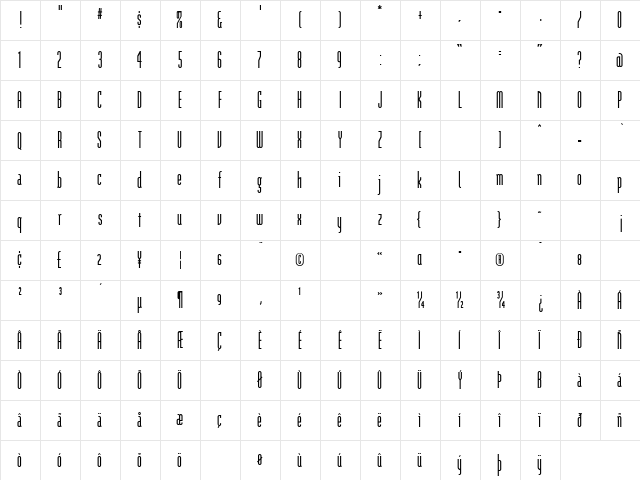
ModulaTall Regular Font Preview
ModulaTall Regular
Design Context for ModulaTall Typeface
ModulaTall offers clean, dependable letterforms without strong stylistic allegiance, making it a practical choice for designers who need flexibility.